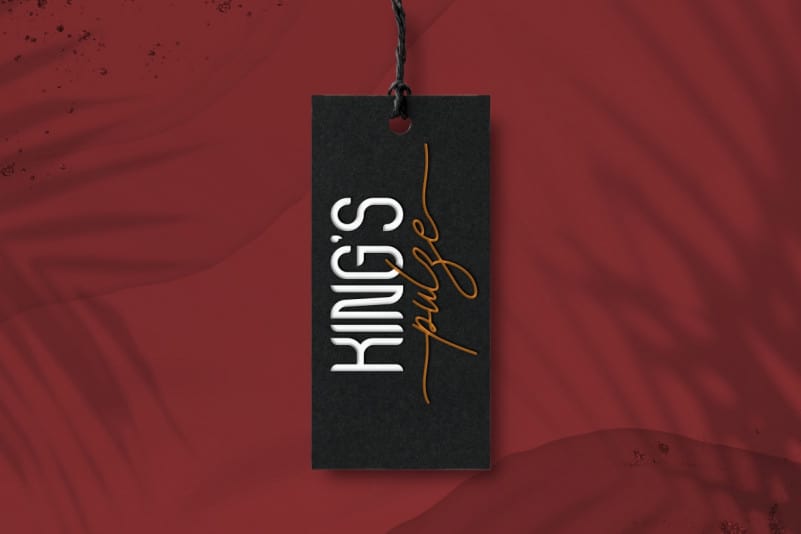
Neitherly Font Duo
Neitherly Font Duo is a Font Family with SIX different font styles : Script, Sans, Medium, Light, Bold and Black . The style of this font are minimalist, signature, modern, elegant, luxury, glamour, classic and simple lettering.